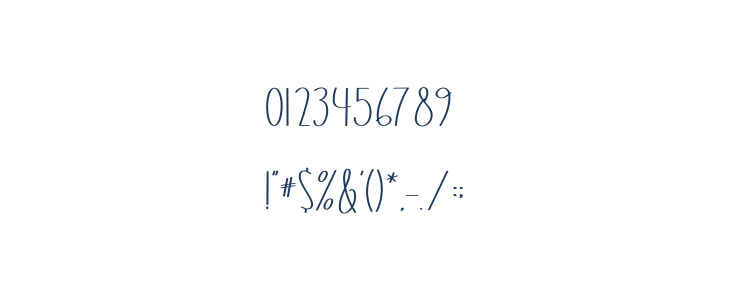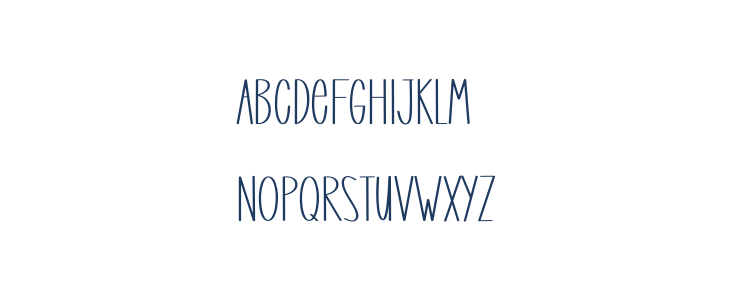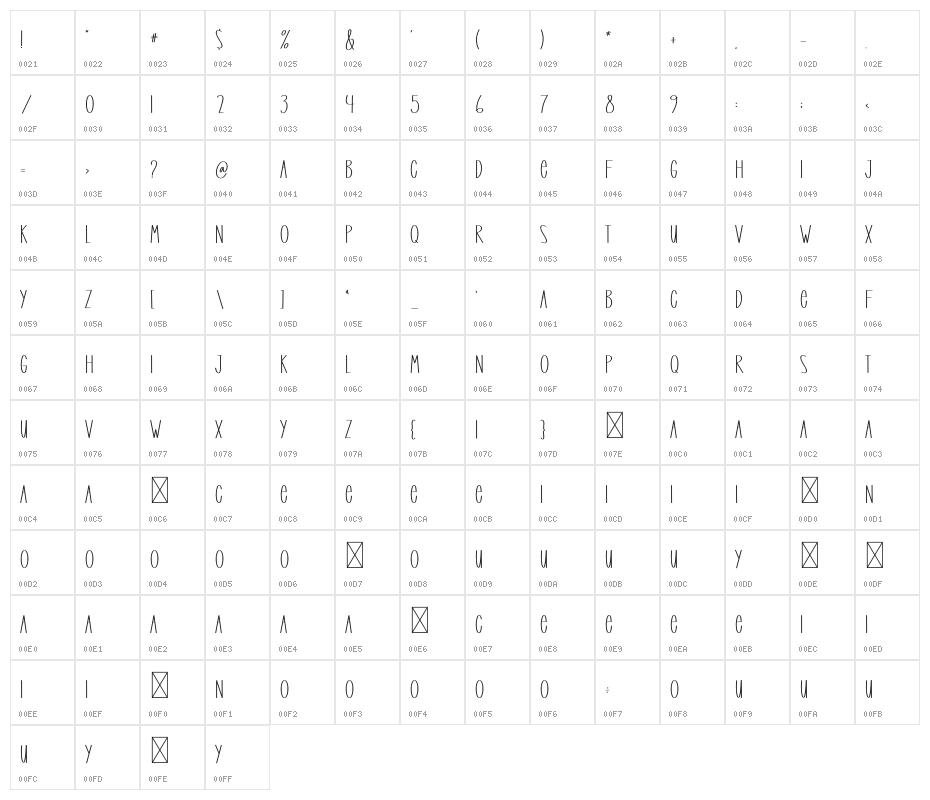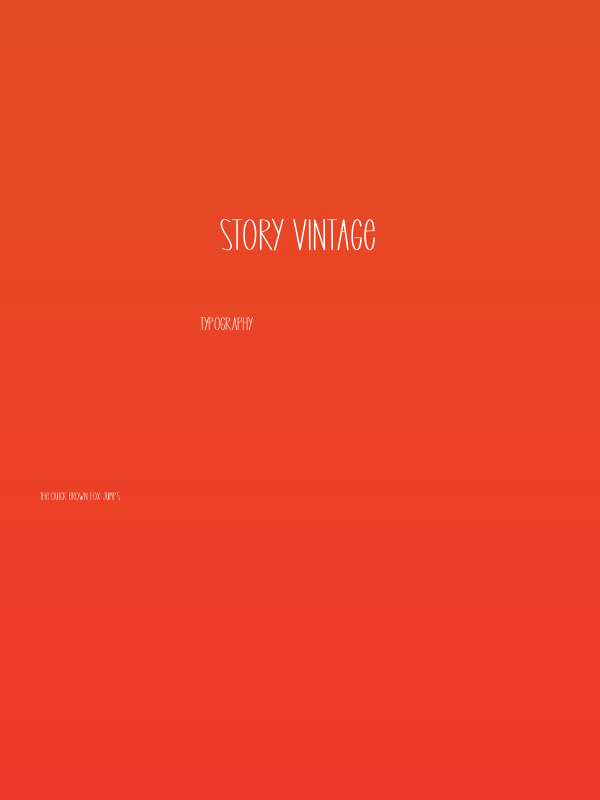
Story Vintage Font
Story Vintage Description
A tall, narrow sans-serif font with playful, slightly irregular strokes and a hand-drawn feel. The characters have a consistent thin weight, rounded terminals, and a whimsical, vintage-inspired appearance.
| Overall Style | Vintage, Decorative, Handwritten |
| Use Case | Headlines, Logos, Posters, Invitations |
| Proposed Projects | Greeting cards, posters, retro branding, invitations, childrenΓ’β¬β’s books, decorative headlines. |